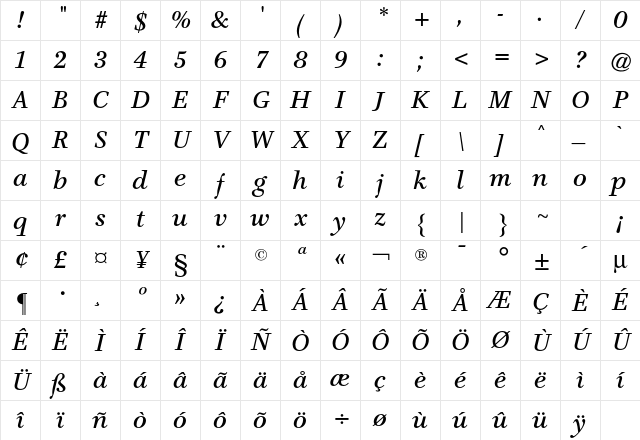
Claridge CG Italic
Foundry: Miles Inc
Design Context for Claridge CG
Claridge CG is a composed and adaptable typeface that performs quietly and consistently across a wide range of design contexts. The slanted form adds forward momentum and visual energy.
Pro Tip: Use Claridge CG for emphasis, pull quotes, and subheadings where its slanted energy can add rhythm to the layout.
Who designed the Claridge CG Italic font?